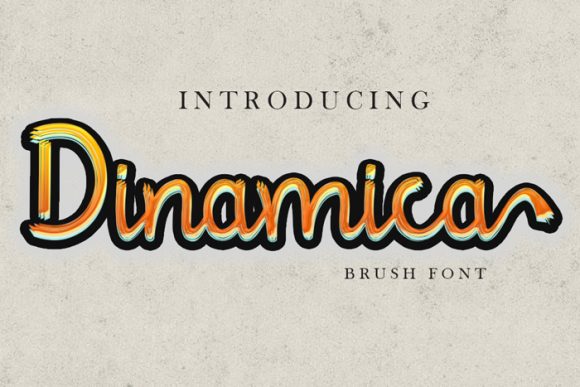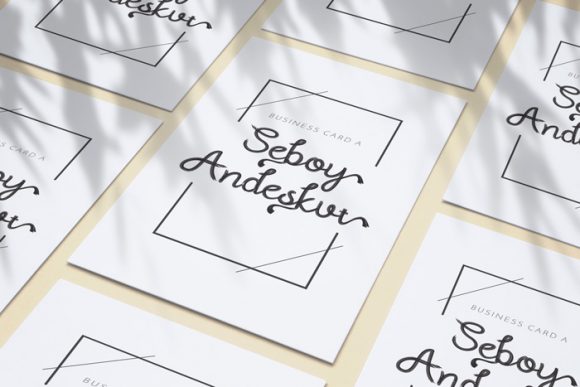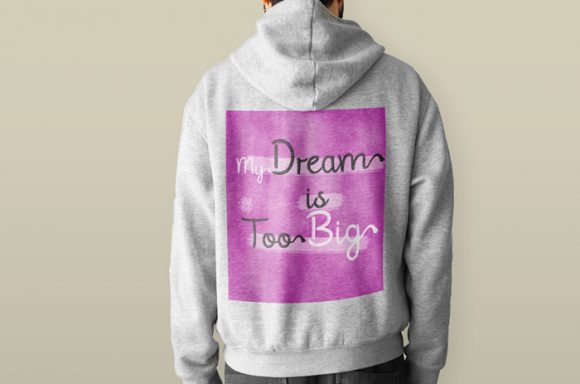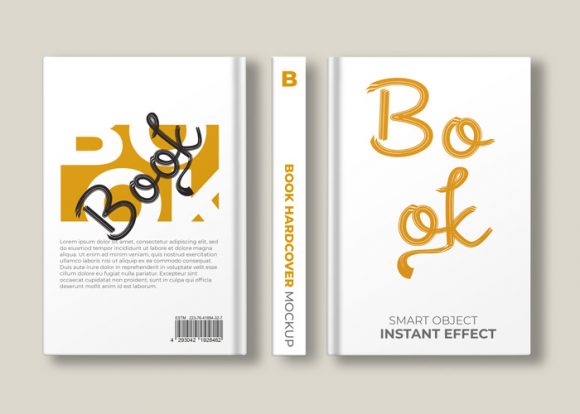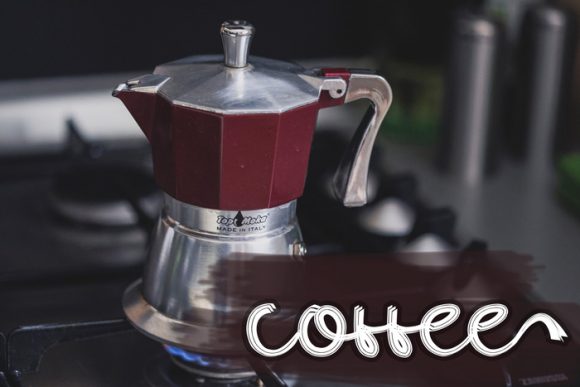
Dinamica Font
About Dinamica Font
Dinamica is a well balanced, brushed handwritten font. It can easily be matched to an incredibly large set of projects, so add it to your creative ideas and notice how it makes them stand out!